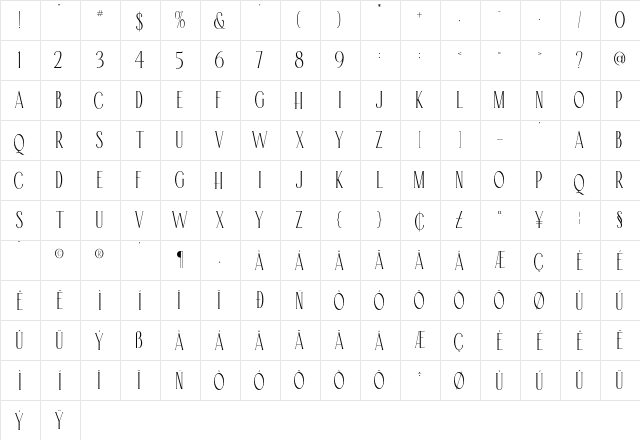
Rosseta Regular
| Foundry | Angin Studio |
| Designer | Angin Studio |
Design Context for Rosseta Typeface
Rosseta takes a measured approach to typography — its balanced proportions and neutral character make it a reliable workhorse for both digital and print work.